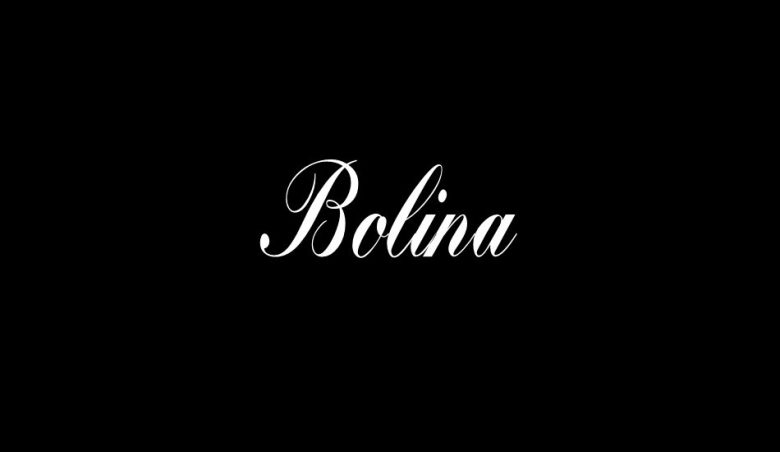
Bolina Calligraphy Script Font
Bolina Script Font is a high quality Calligraphy font that is designed by ClaudeP and is available for free download personal & commercial use. The free version provides all uppercase and lowercase letters and a few special characters too.